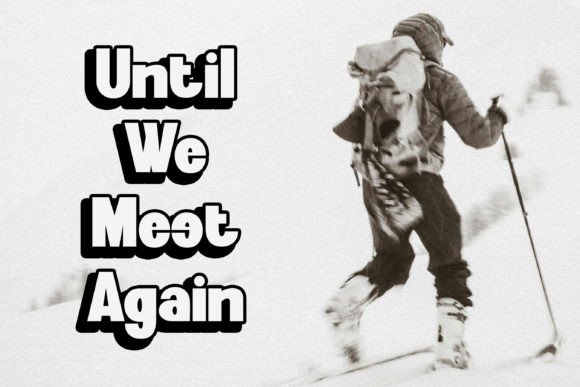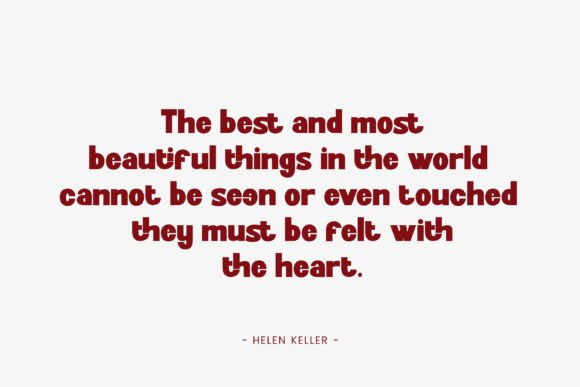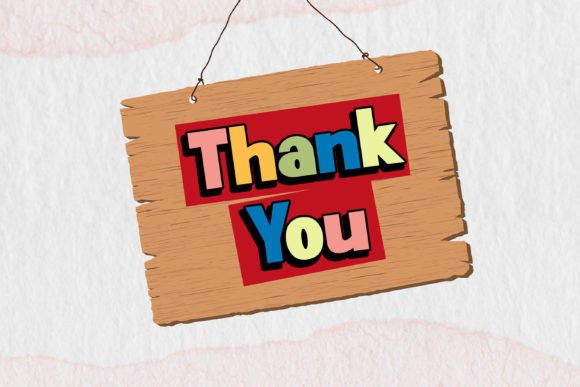
Introducing “Grip Grafted” – A Chunky Font for YouTube
In the vast and competitive world of YouTube, capturing the attention of viewers is a constant challenge. With millions of videos vying for clicks and views, creators need every advantage to make their content stand out. This is where typography plays a crucial role, particularly in video titles and thumbnails. A bold, eye-catching font can make all the difference, drawing in viewers and setting the tone for the content. Enter “Grip Grafted,” a chunky font designed specifically for YouTube, engineered to command attention and drive engagement.
The Power of Typography on YouTube
Typography is more than just a stylistic choice; it’s a powerful tool for communication and branding. On YouTube, where visuals are paramount, the font used in video titles and thumbnails can significantly influence viewer behavior. A well-chosen font can convey the mood and personality of the content, making it more relatable and appealing to the target audience. Conversely, a poorly chosen font can make the content seem unprofessional or uninviting.
What is Grip Grafted?
Grip Grafted is a bold and chunky font, meticulously designed to make a statement on YouTube. Its strong presence and distinctive style are crafted to cut through the noise of the digital landscape, ensuring that video titles and thumbnails not only stand out but also entice viewers to click and engage. Whether you’re a YouTuber, marketer, or content creator, Grip Grafted offers a unique opportunity to elevate your brand’s visual identity and make a lasting impression.
Key Features of Grip Grafted
- Bold and Chunky Design: The font’s substantial weight and size ensure it commands attention, even at a glance.
- Distinctive Style: Grip Grafted’s unique design elements set it apart from more generic fonts, giving your content a personalized and professional look.
- High Readability: Despite its boldness, the font maintains high readability, making it perfect for titles and thumbnails where clarity is essential.
- Versatility: Suitable for a wide range of content types, from gaming and vlogging to educational and promotional videos.
For designers and crafters, Grip Grafted offers a versatile tool that can enhance their creative projects. Here are some benefits:
- Enhanced Visual Impact: The font’s bold design can add a dynamic element to any project, making it more visually appealing.
- Branding Consistency: For those working on projects for clients or personal brands, Grip Grafted can help maintain a consistent visual identity.
- Time-Saving: With a unique and ready-to-use font, designers can save time that would otherwise be spent on custom font creation.
- Inspiration: Sometimes, all it takes is a new element to spark creativity. Grip Grafted can serve as inspiration for new design directions.
In the competitive arena of YouTube, every detail counts, and typography is no exception. Grip Grafted emerges as a powerful tool for creators looking to make a mark and stand out. Its bold, chunky design and distinctive style offer a fresh alternative to standard fonts, ensuring that video titles and thumbnails capture the attention they deserve. For designers and crafters, Grip Grafted provides a means to elevate projects with a professional and impactful font. Embrace the power of Grip Grafted and transform your YouTube presence with a font that’s designed to grip and engage.